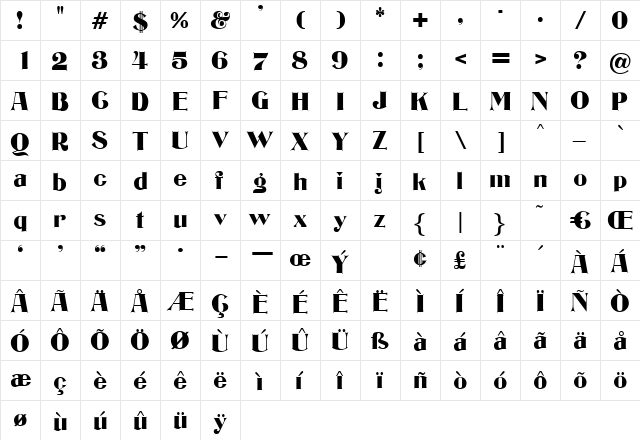
Richard Regular
Richard takes a measured approach to typography — its balanced proportions and neutral character make it a reliable workhorse for both digital and print work.
Pro Tip: Use Richard in both headline and body roles to test its range before committing to a single application.